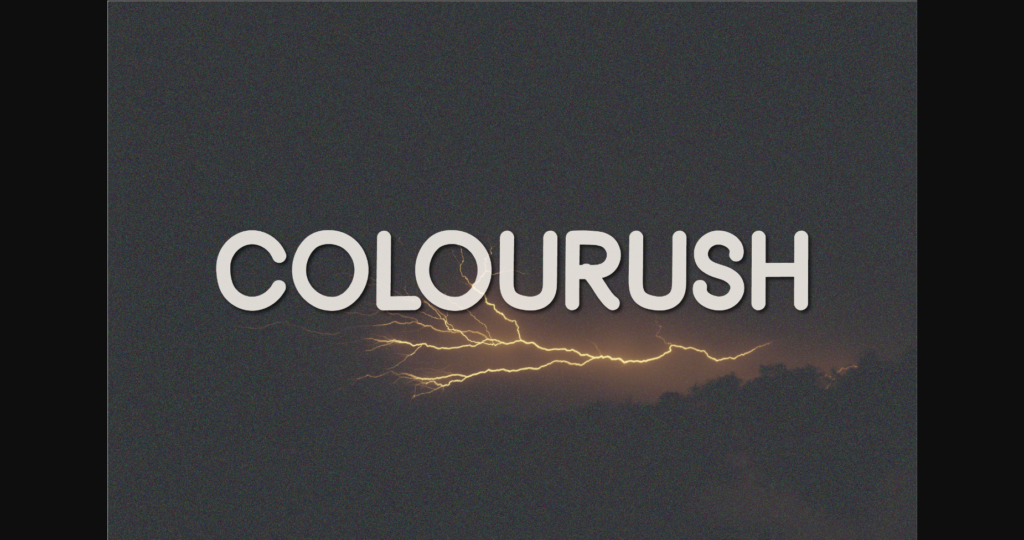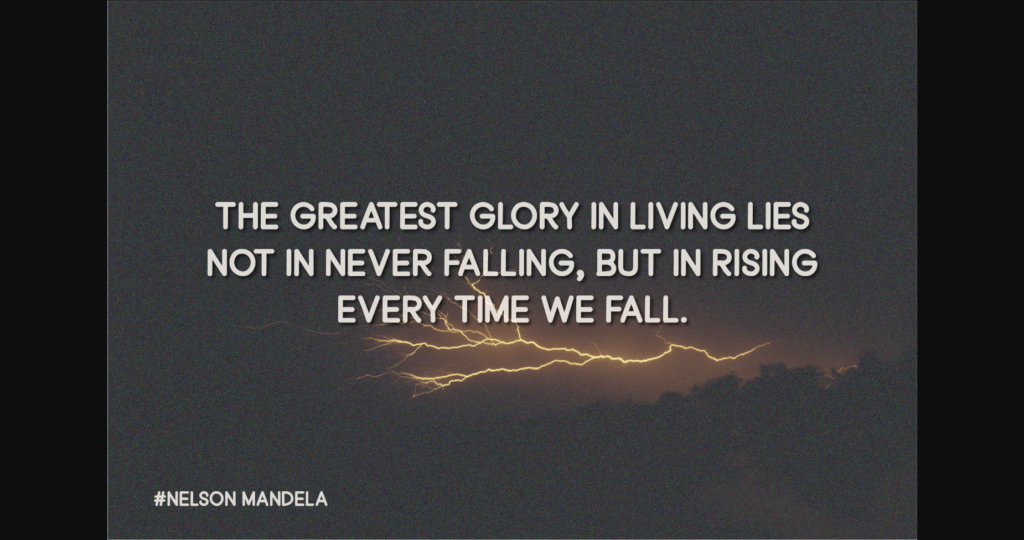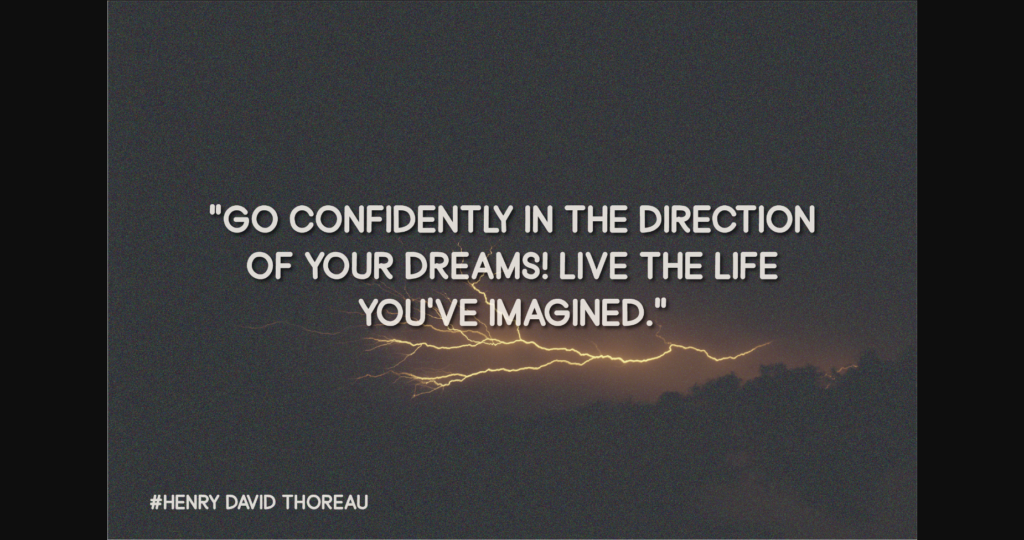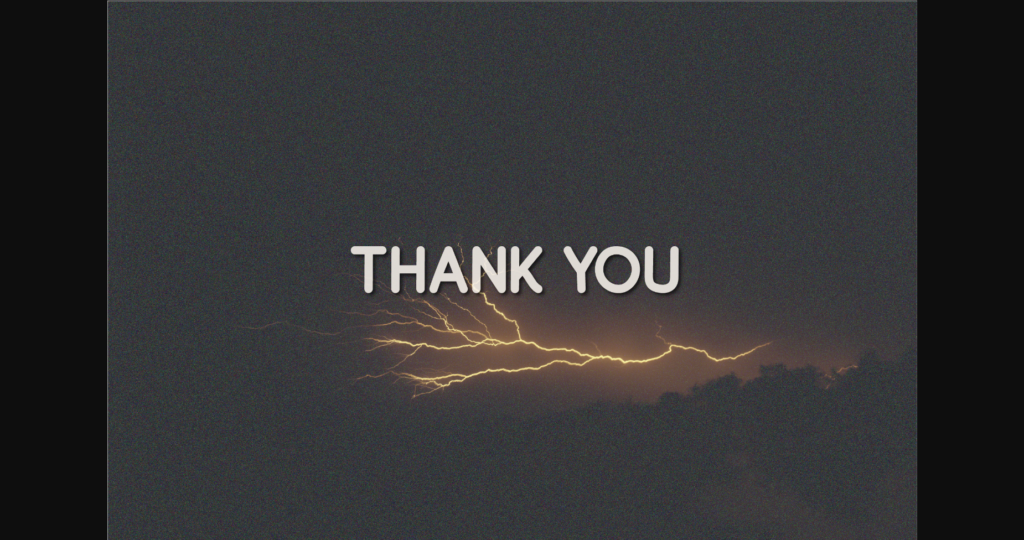
Colourush is a quirky all-caps font made up of capital letters. This font is perfect for social media or crafty projects. Simple and smooth perfect for crafting, t-shirts, decals, cards, invitations and so much more.